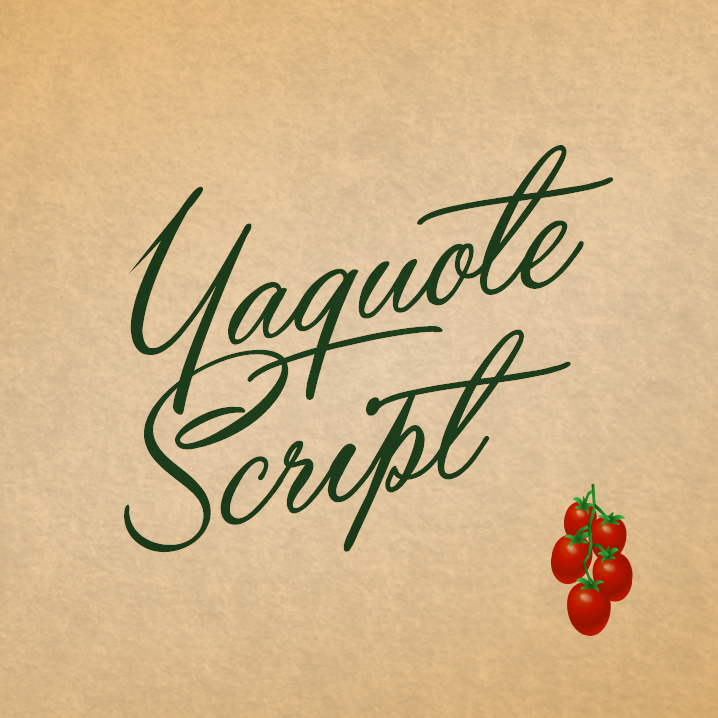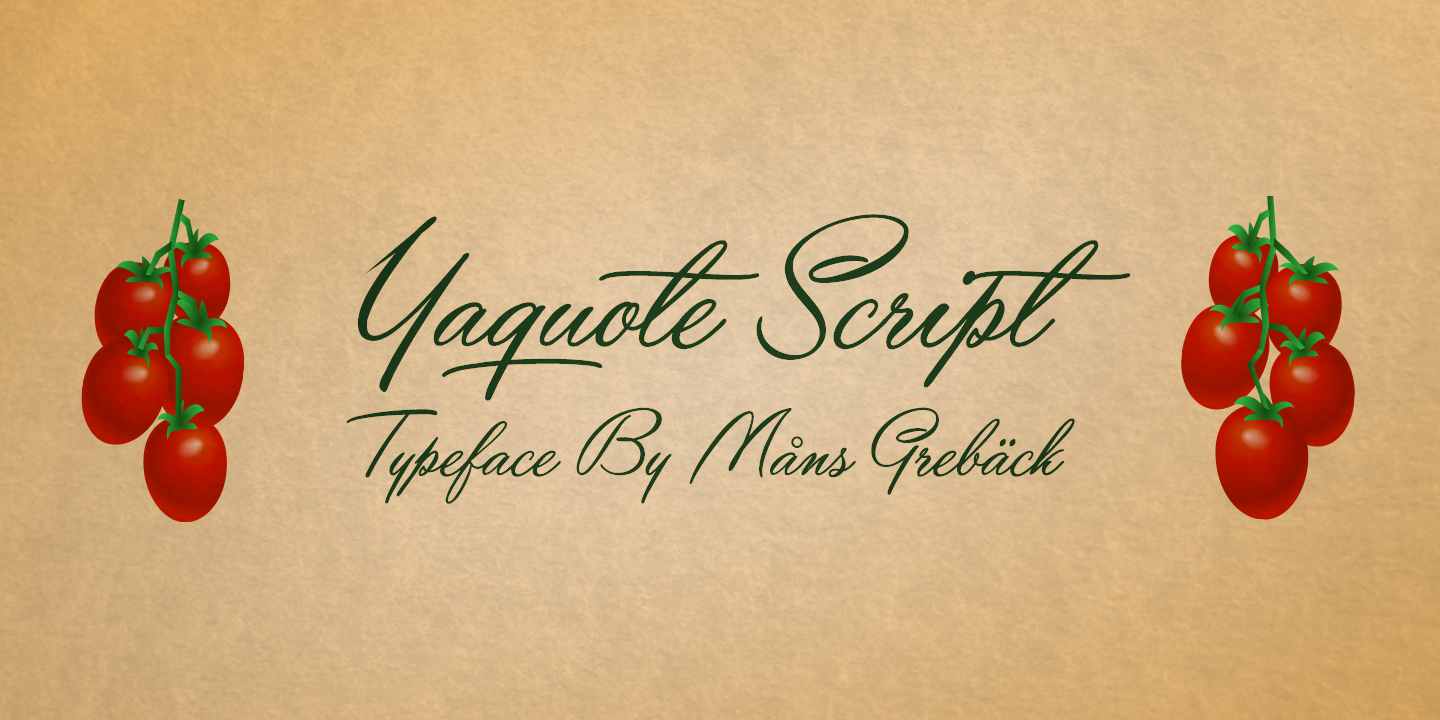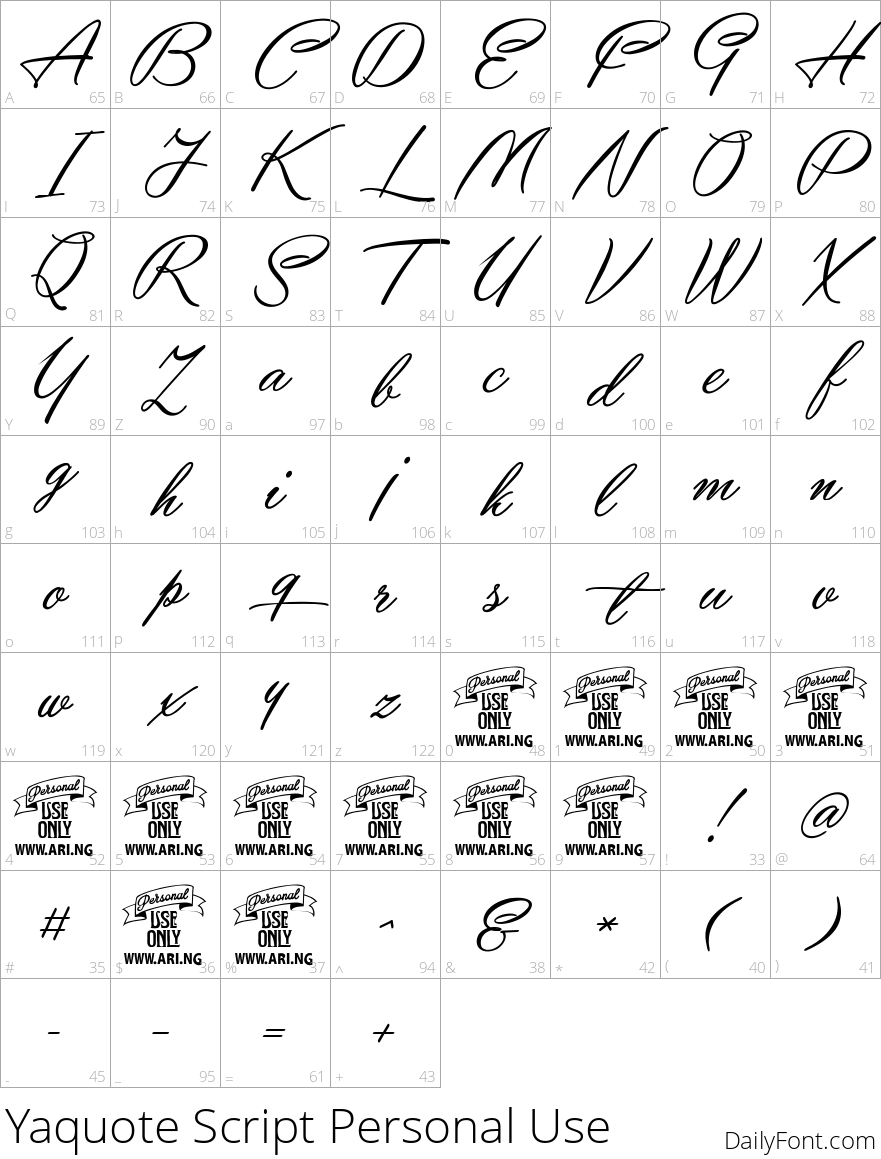
Yaquote Script Personal Use
Bold flowing cursive script with dramatic capital swashes
Yaquote Script is a bold, expressive cursive font with dramatic swashes and a confident, hand-inked feel. Every capital letter carries extra flourish, making it a strong choice for invitations, branding, and quote graphics that need real personality.